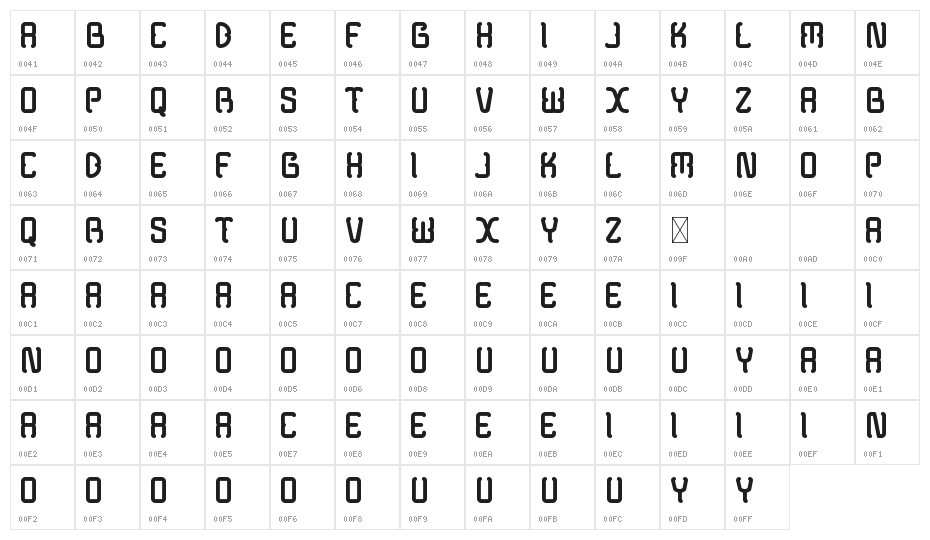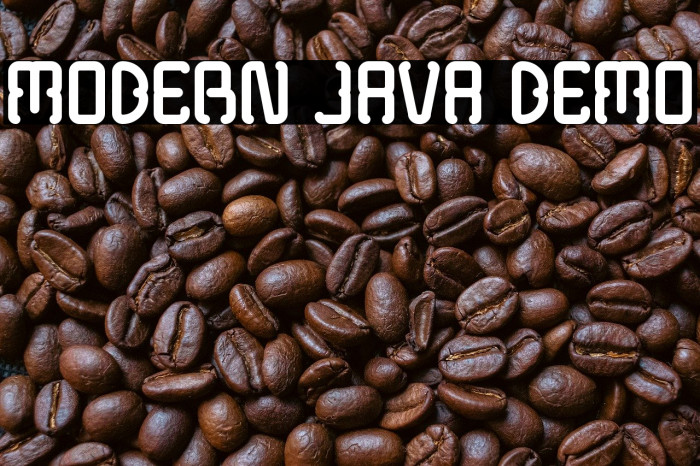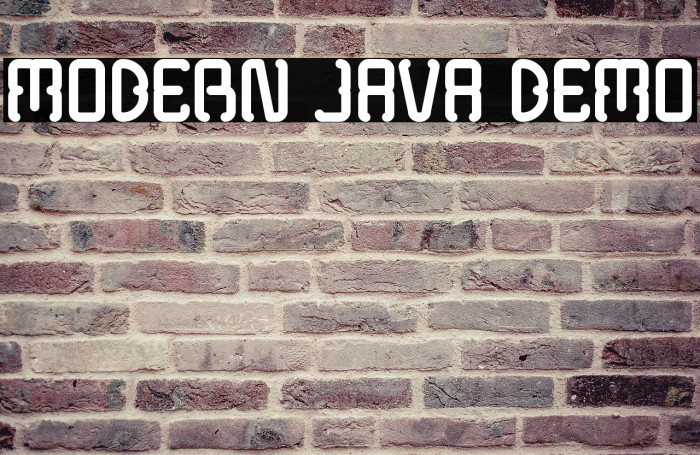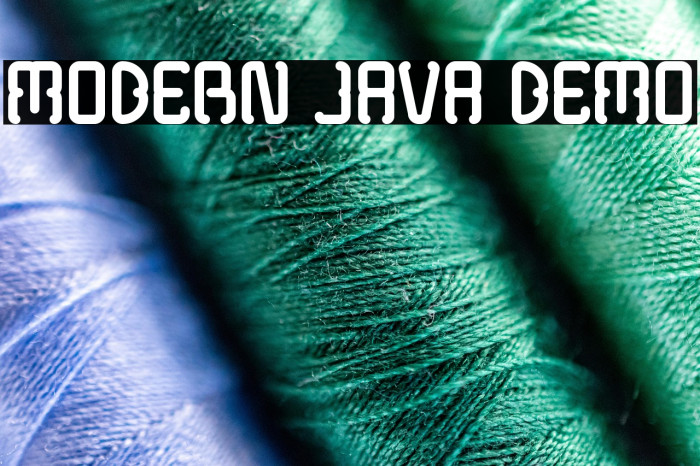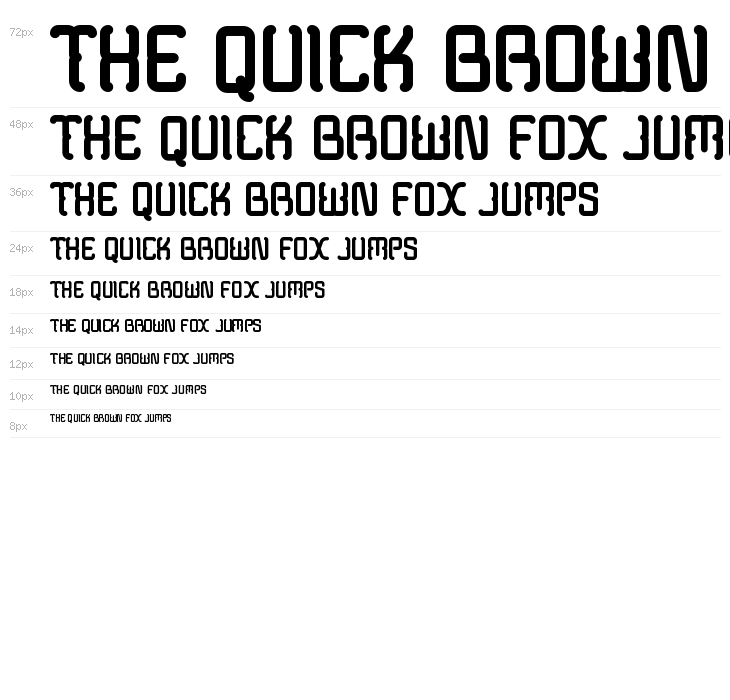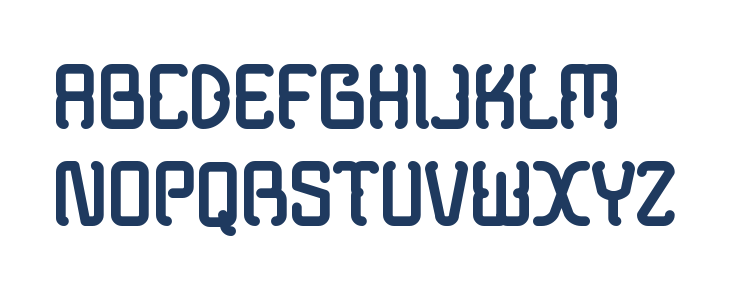
Modern Java Demo Font
Modern Java Demo Description
This font features a unique, modern design with a bold and rounded appearance. Each character is crafted with a consistent stroke width, giving it a monospaced feel. The letters are slightly condensed, enhancing readability while maintaining a distinct style. The geometric shapes and rounded edges create a futuristic and tech-inspired look, making it ideal for projects that require a contemporary aesthetic. The font's uniformity and clean lines make it versatile for various design applications.
| Overall Style | Futuristic, Tech-inspired |
| Use Case | Headlines, Logos, Digital interfaces |
| Proposed Projects | Ideal for tech branding, modern posters, digital interfaces, and futuristic-themed designs. |